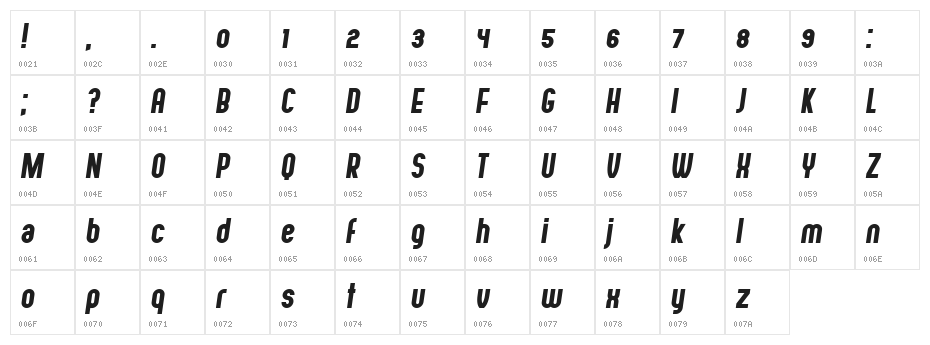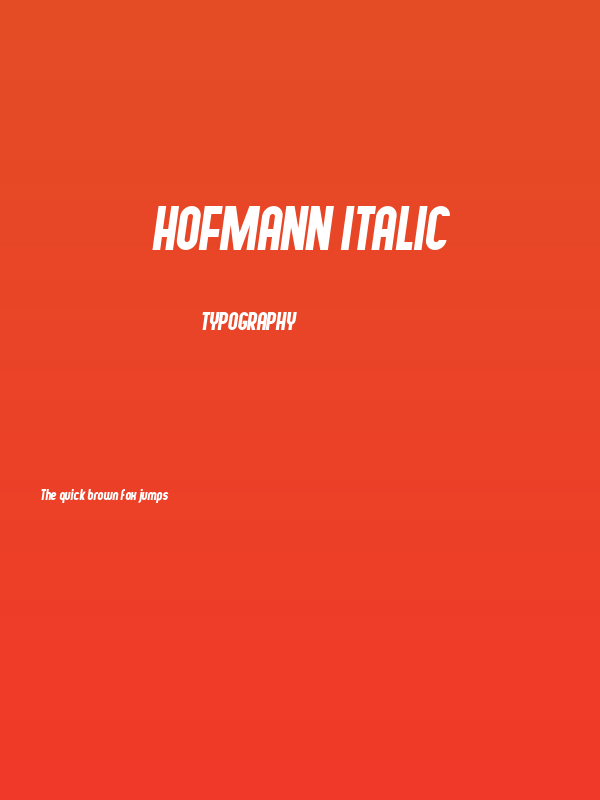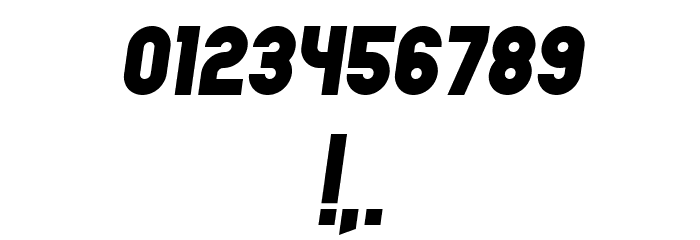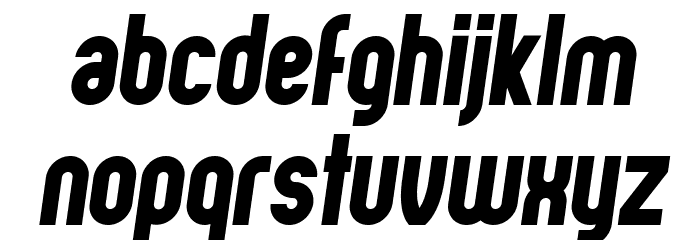
Hofmann Italic Font
This font features a bold and dynamic italic style, characterized by its strong, slanted letterforms that convey a sense of movement and energy. The uppercase and lowercase letters are well-balanced, with a consistent stroke width that enhances readability. The numerals are clear and distinct, matching the overall boldness of the alphabet. Special characters are included, maintaining the same stylistic approach. This font's design is modern and impactful, making it suitable for various creative applications.
HOFMANN-ITALIC UPPERCASE
HOFMANN-ITALIC LOWERCASE
HOFMANN-ITALIC OTHER CHARS
| Proposed Projects | Ideal for branding, advertising, posters, and headlines where a strong, modern impact is desired. |